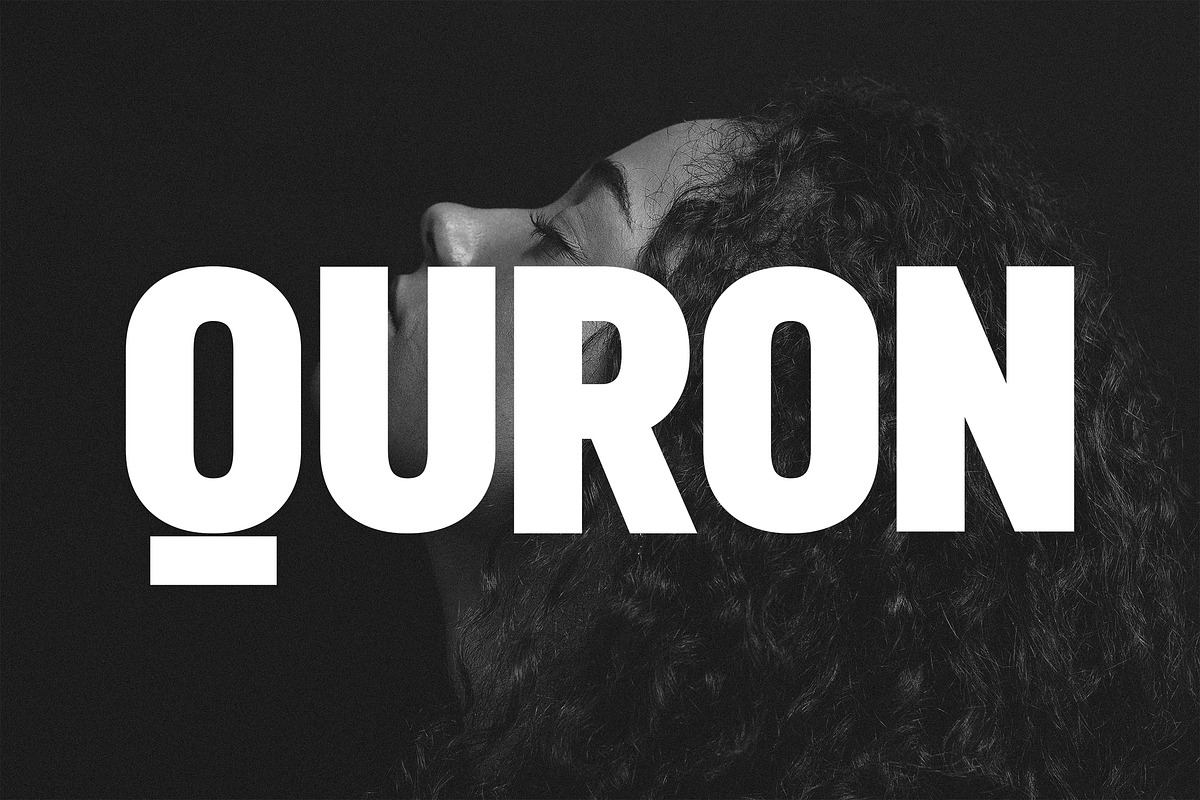
Quron Display Typefaces + Webfonts Free Download is a striking and modern font collection designed to make bold statements in branding, headlines, websites, and editorial design. With sharp lines and unique character shapes, Quron delivers a contemporary edge that's perfect for both print and digital use. Please note that you must purchase this font for commercial use, but it is available as a free download for testing purposes. Take your typography to the next level with Quron Display Typefaces + Webfonts Free Download and bring dynamic visual impact to every project.